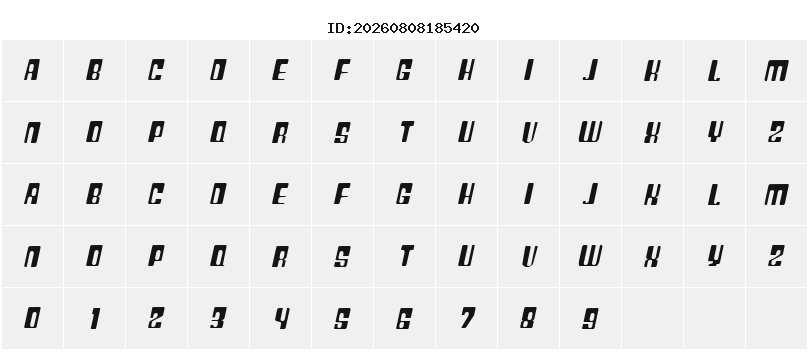
Plastic No.25 Preview
• Font Name: Plastic No.25
• Full Font Name: Plastic No.25
About Plastic No.25.ttf
Plastic No.25.ttf is a modern, elegant sans-serif font designed for ultimate readability and visual harmony. Perfect for branding, headlines, web design, and print materials.